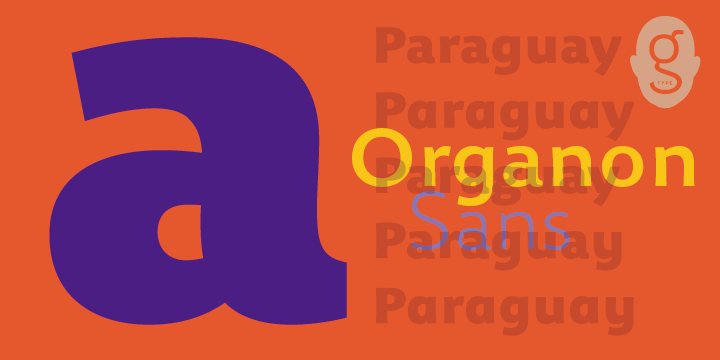
The six weight Organon Sans typeface is a stylish and feature-laden OpenType family which complements its sister Organon Serif, both components working in tandem to create an elegant, legible and thoughtfully designed suite of fonts which share similar cap & x heights, stem widths and ascender/descender values. Tapered stems give the Organon Sans fonts an attractively robust appearance.